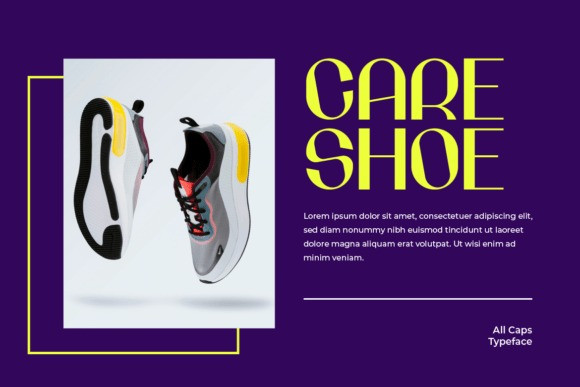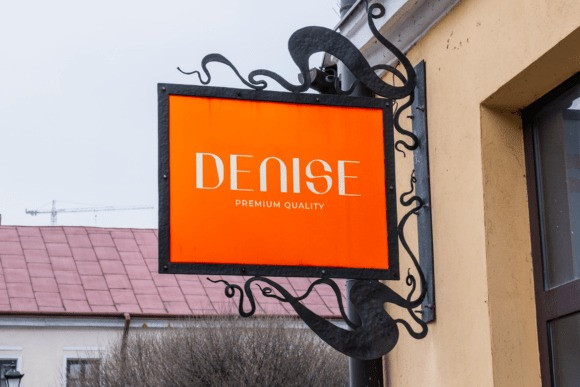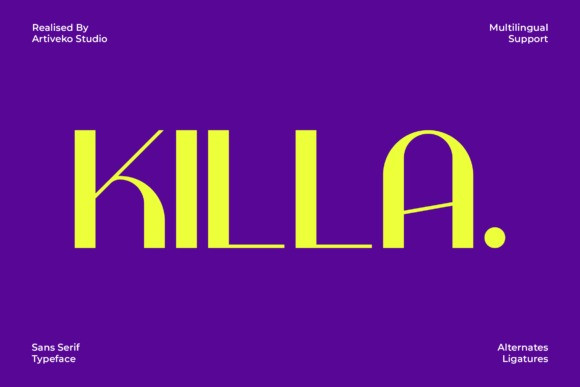
Killa Font
Killa Font is a minimalist feminine font by Iwan Alwan, designed with delicate and refined letterforms that exude elegance and simplicity. Ideal for branding, invitations, and editorial design, Killa offers a subtle yet sophisticated look that enhances any project with a soft, modern charm. With multilingual support, ligatures, and alternates, Killa is versatile while maintaining its graceful, understated aesthetic, making it perfect for designs that seek a minimalist and feminine touch.